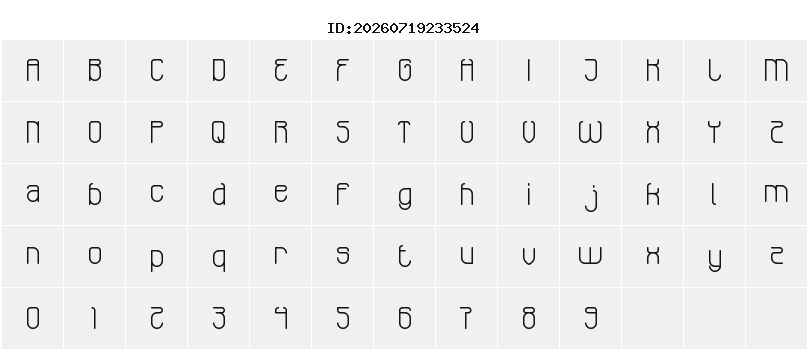
Entertaintment Show Preview
• Font Name: Entertaintment Show
• Full Font Name: Entertaintment Show
About Entertaintment Show.ttf
Entertaintment Show.ttf is a modern, elegant sans-serif font designed for ultimate readability and visual harmony. Perfect for branding, headlines, web design, and print materials.